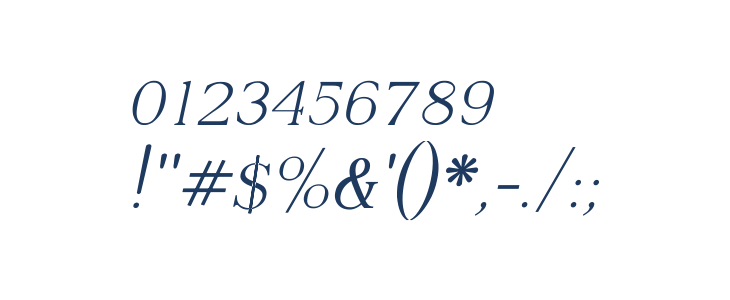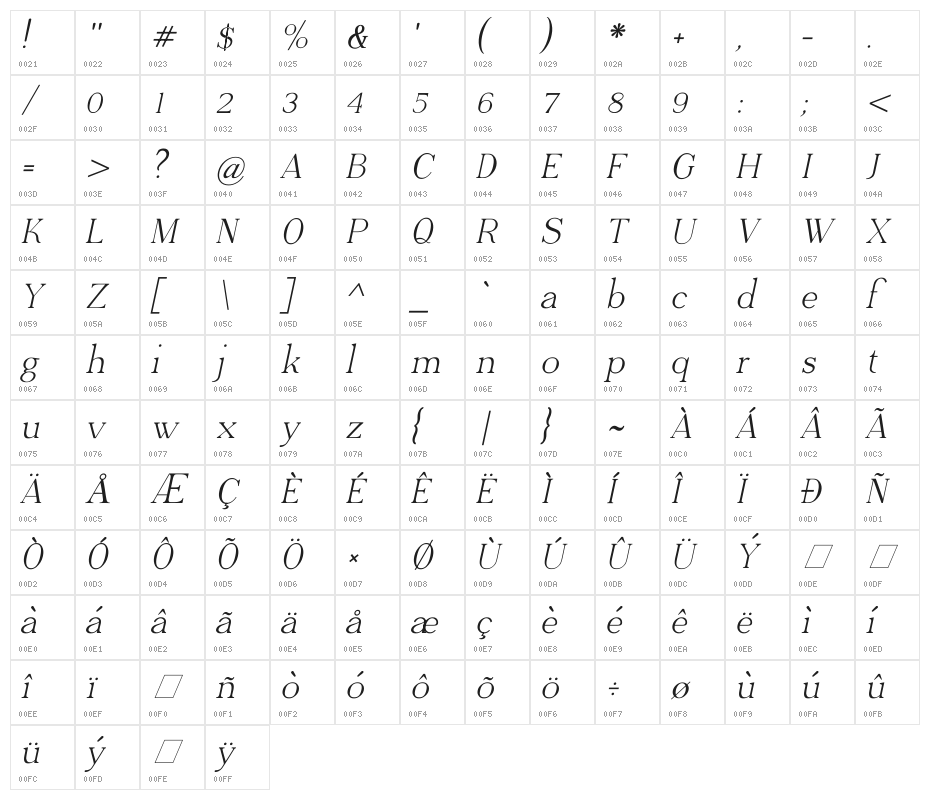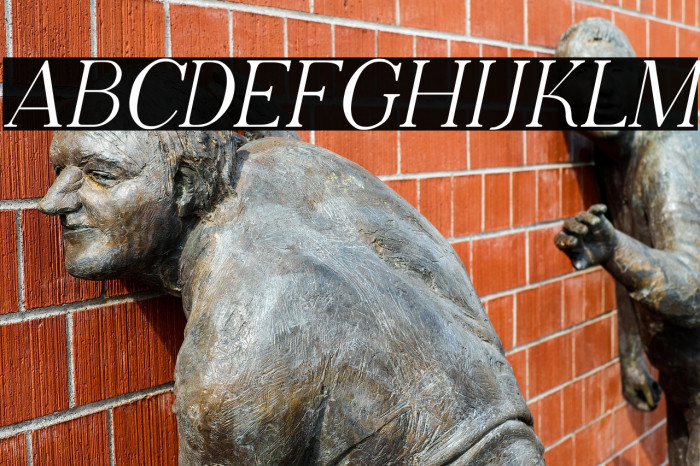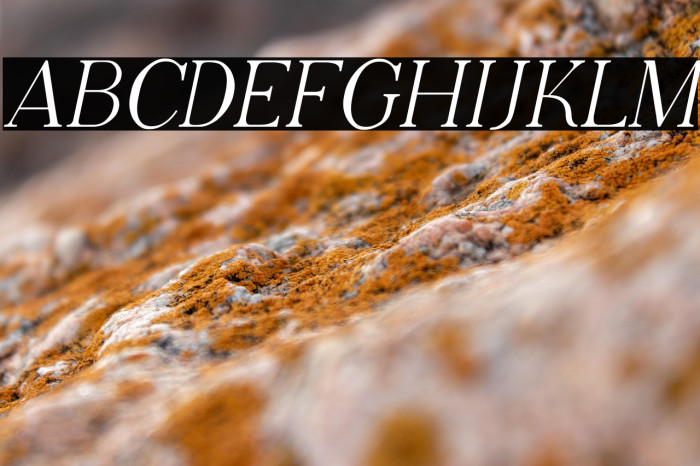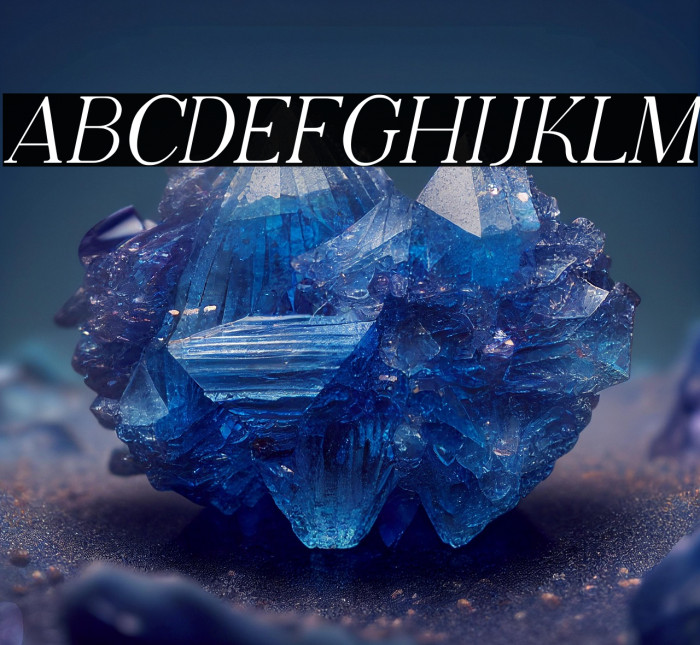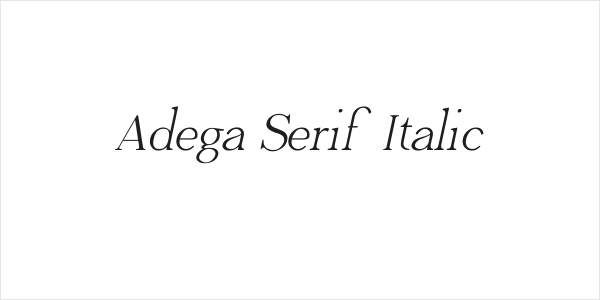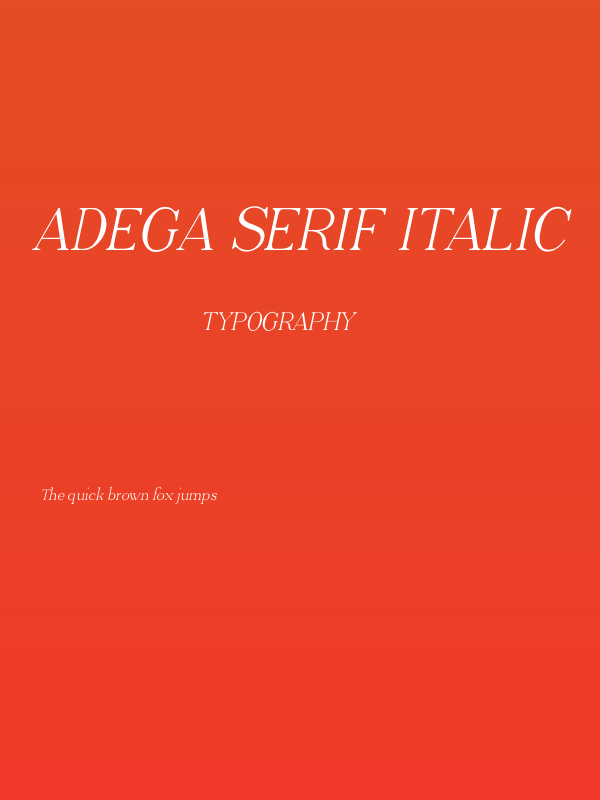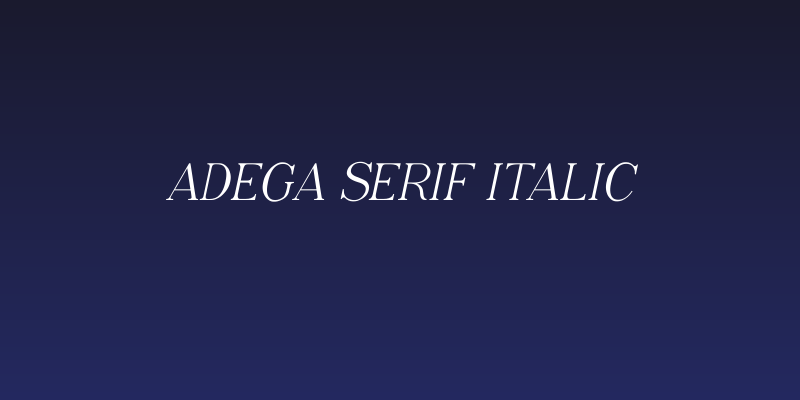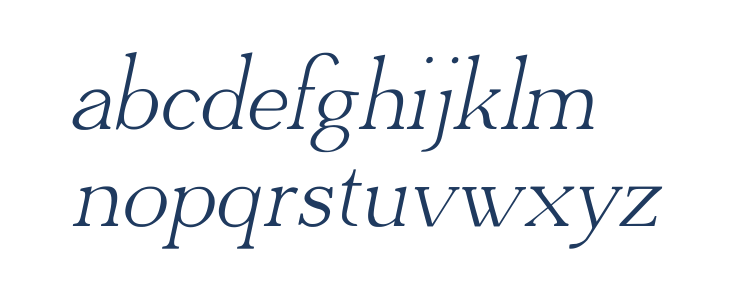
Adega Serif Italic Font
Adega Serif Italic Description
This elegant serif font features a classic italic style with smooth, flowing lines and a refined appearance. The uppercase letters are tall and slightly narrow, while the lowercase letters maintain a consistent slant, enhancing the font's sophisticated look. The numerals are well-proportioned, and the special characters are designed to complement the overall aesthetic. The font's delicate serifs and moderate contrast in stroke thickness contribute to its timeless appeal, making it suitable for a variety of design applications.
| Proposed Projects | Ideal for use in editorial design, luxury branding, wedding invitations, and elegant packaging. |